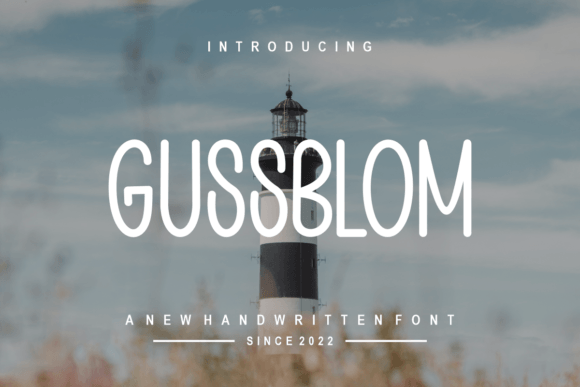
Indulge in the captivating beauty of Gussblom, a sans serif typeface that will enchant your wedding stationery and elevate your special day. Its graceful curves and refined strokes evoke a timeless elegance, perfectly capturing the joy and romance of your union.
With Gussblom, your wedding menu becomes a cherished keepsake, a tangible expression of your love story. Its delicate lines and airy flourishes will add a touch of ethereal grace to every dish, making your culinary offerings as unforgettable as the celebration itself.
Beyond its undeniable aesthetic allure, Gussblom is also a versatile font, effortlessly complementing any wedding theme. Whether it's a rustic outdoor gathering or a grand ballroom affair, Gussblom will adapt seamlessly, adding a touch of sophistication and timeless charm to every detail.
Designed by the renowned warehouselogo7, Gussblom is a labor of love, crafted with meticulous attention to detail. Each letter is a work of art, imbued with a subtle calligraphic influence that keeps it feeling fresh and contemporary.
Fall head over heels for Gussblom and let it transform your wedding menu into something truly extraordinary. Its enchanting presence will weave a spell of romance and elegance, creating a lasting impression that will be cherished for years to come.